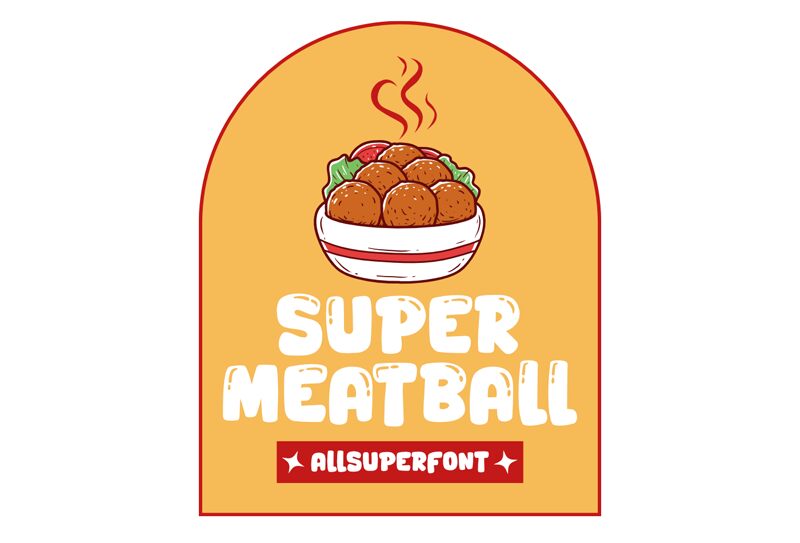
Super Meatball
Super Meatball font by fsuarez913 is a free cartoon display typeface that looks like it’s been scooped, squished, and dripped onto the page. Chunky, rounded letters with gooey cutouts give it a playful, slightly messy energy-like comic-book slime or a bubbly sauce splatter. The bold weight and tight rhythm make every word feel loud, confident, and a little mischievous.
Using Super Meatball, you can instantly juice up kids’ book covers, snack packaging, slime or toy branding, party invites, thumbnails, and playful posters. This free font shines when used big and bold, where its inky blobs and curves can really show off. Pair it with a clean, simple sans serif for body text to keep things readable while Super Meatball handles all the fun.